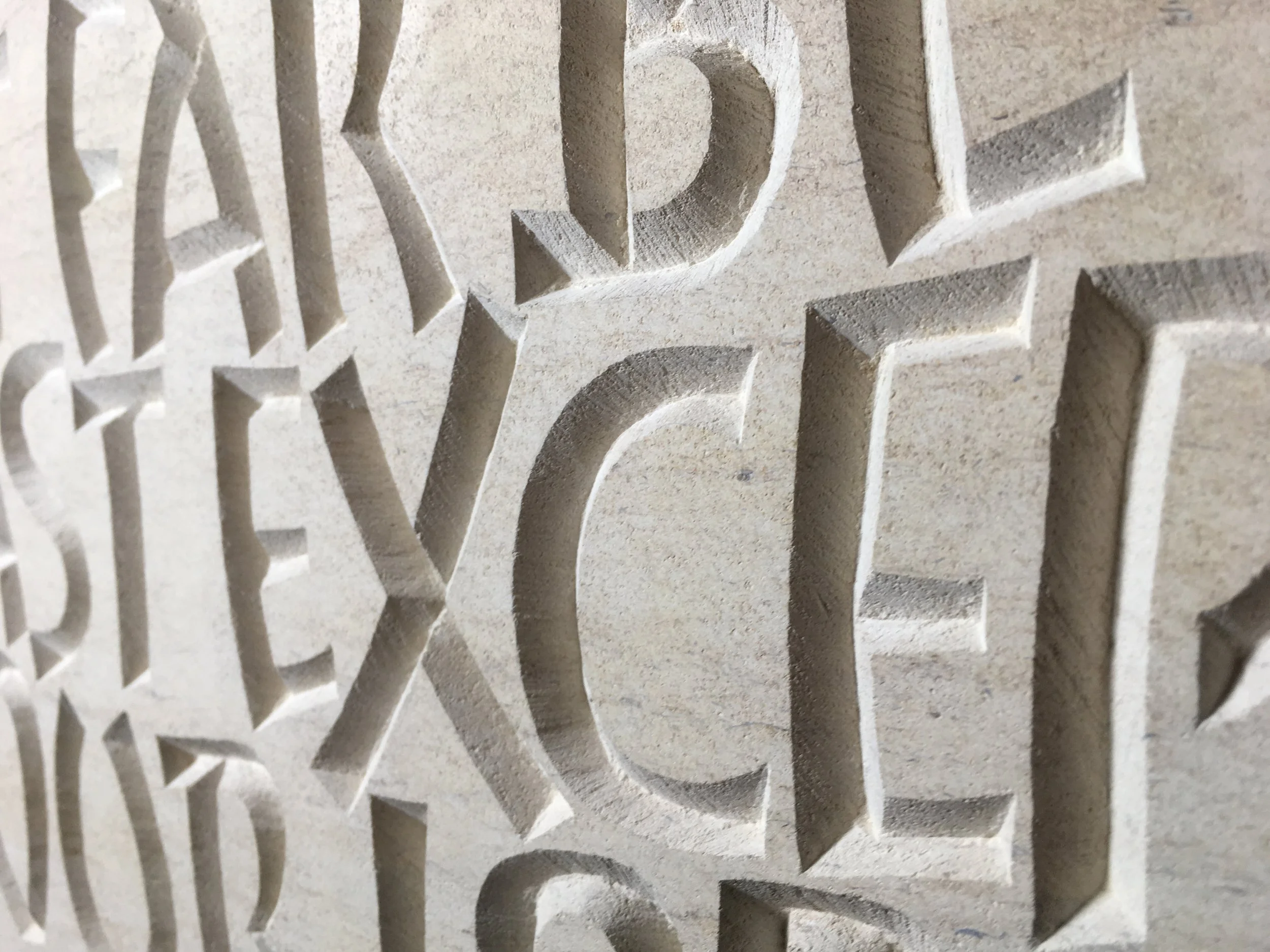
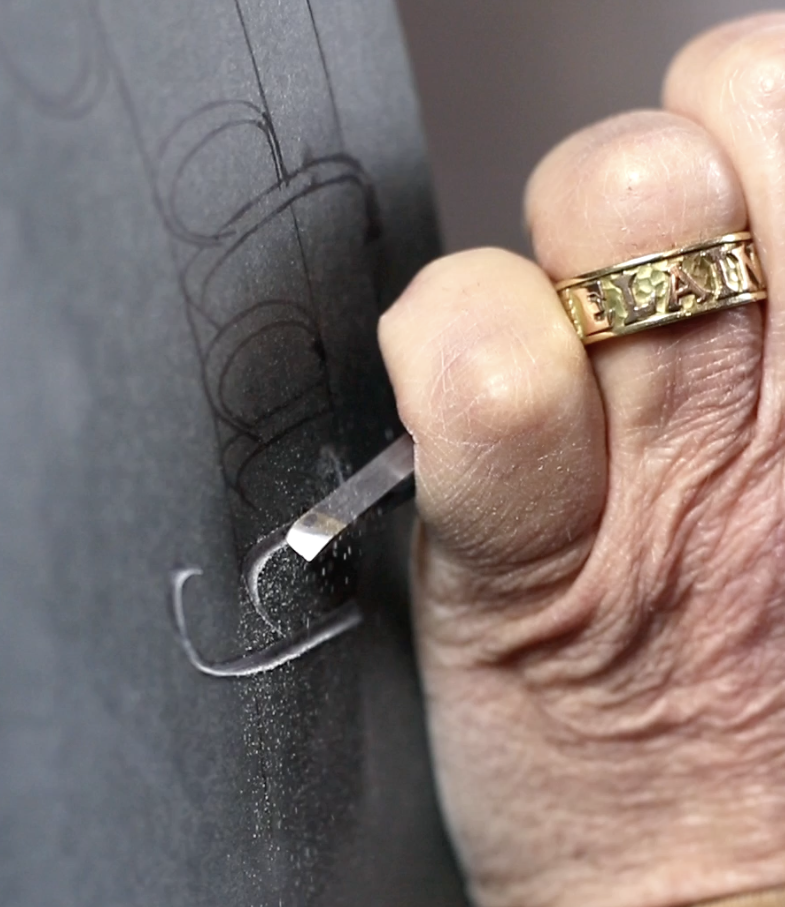
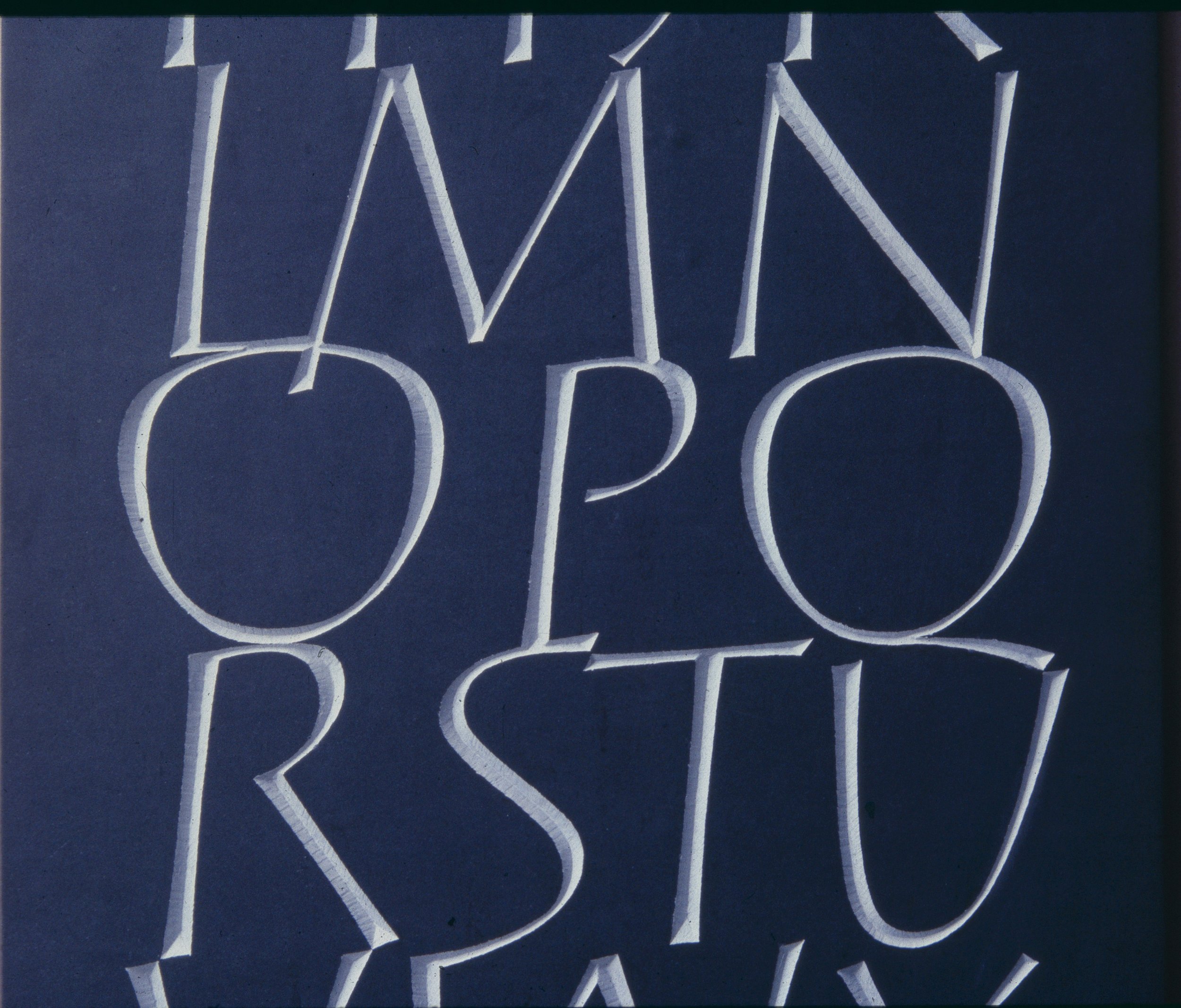
Letter carvers Tom Perkins and Simon Langsdale will be running a six day letter carving course in the beautiful surroundings of Parndon Mill, Harlow from 17-22 August 2026.
The course will comprise of two parts, beginning with drawn lettering with Tom for three days and then carving with Simon for the last three days.
Tom will be giving a talk on his ‘dynamic’ letters, explaining his sources of inspiration and how he developed the forms as well as covering other aspects of drawn lettering. Students will then work on their own drawings, refining them with guidance from Tom until they are ready to begin carving with Simon.
As well as the carving of the inscriptions, Simon will give advice on easels, lighting, carving techniques, how to sharpen chisels and which tools to use and where to get them from.